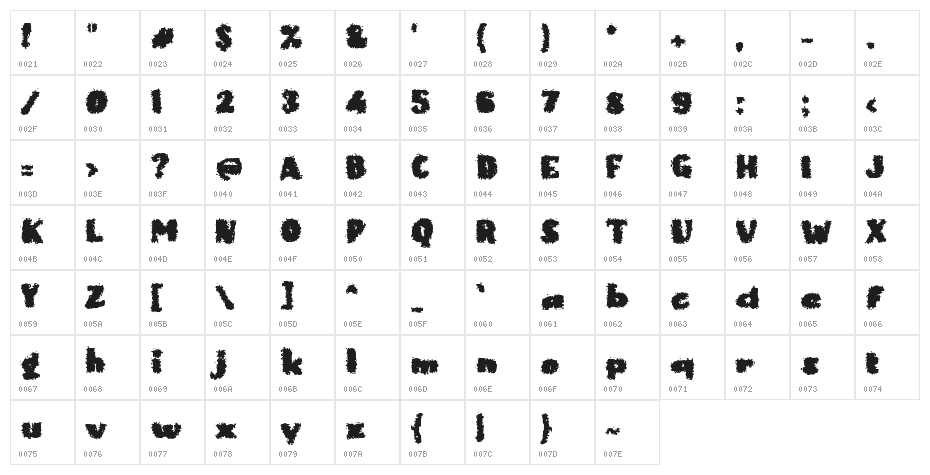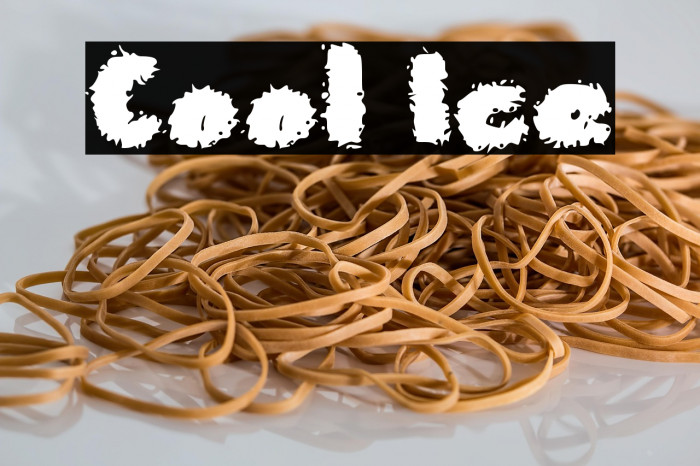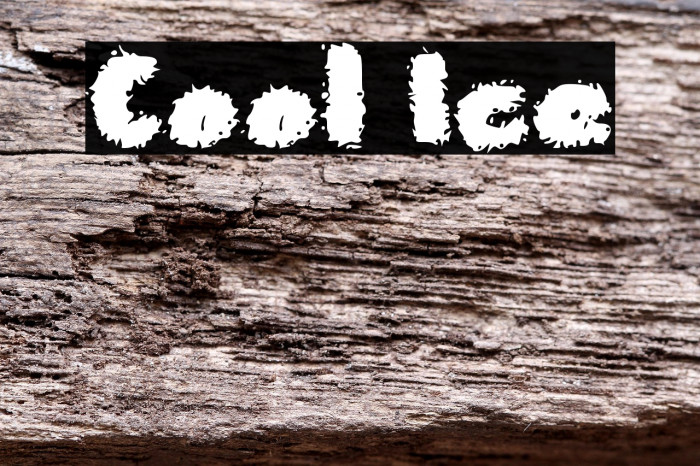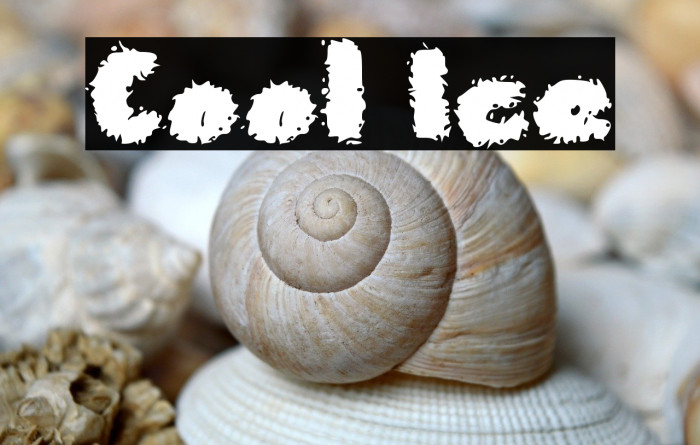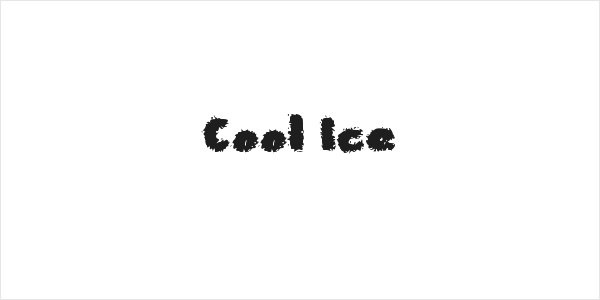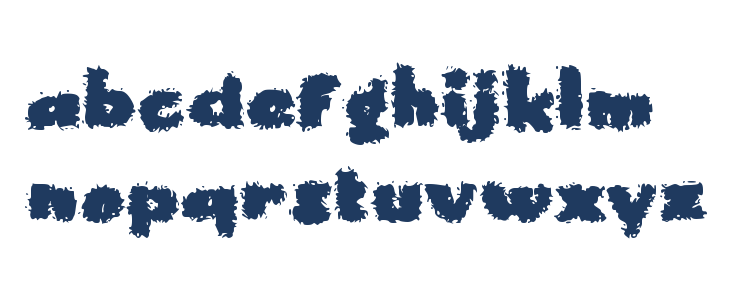
Cool Ice Font
Cool Ice Description
This font features a bold, textured design that resembles ice or frost, giving it a rugged and dynamic appearance. The characters are heavily stylized with jagged edges and irregular shapes, creating a sense of movement and energy. The uppercase and lowercase letters maintain a consistent style, with the uppercase being more pronounced. Numbers and special characters follow the same icy theme, making them stand out with their unique, frosty look. This font is ideal for projects that require a bold and impactful visual statement.